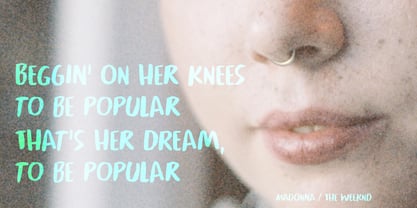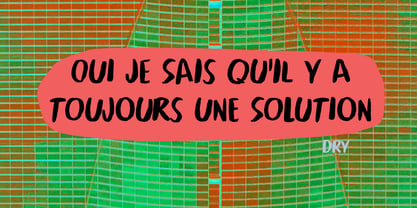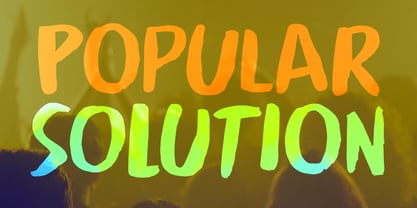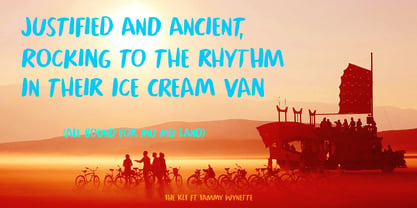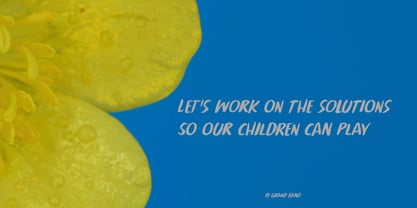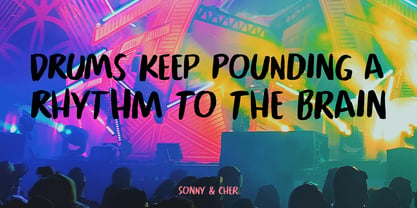
Popular Solution Pro
por Hanoded
La familia tipográfica Popular Solution Pro fue diseñada por David Kerkhoff y publicada por Hanoded. Popular Solution Pro contiene 2 estilos y opciones de paquete familiar. Más información sobre esta familia
Popular Solution is a font I made with a soft, pointy brush and Chinese ink on 180gr water colour paper. The name? Well, I often use a random word generator for inspiration and look for a combination of words that just sounds good. Popular Solution is an uncommon combination, but when you say them out loud, it sounds good.
Popular Solution comes with extensive language support and a set of alternates for the lower case glyphs.
Acerca de Hanoded
Hanoded is run by Dutchman David Kerkhoff. His fonts are a mishmash of styles, as he just creates whatever pops into his head. You will find a lot of brush fonts in his collection, as his favourite tools are brushes and Chinese ink, with cartoon style fonts and script fonts complementing his repertoire. Aside from making fonts, David occasionally guides tours in far-flung places, renovates his '30's house and tries reasoning with his wife and (teenage) kids. Not an easy task!